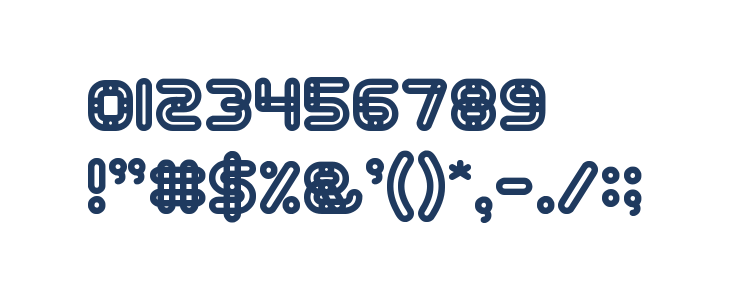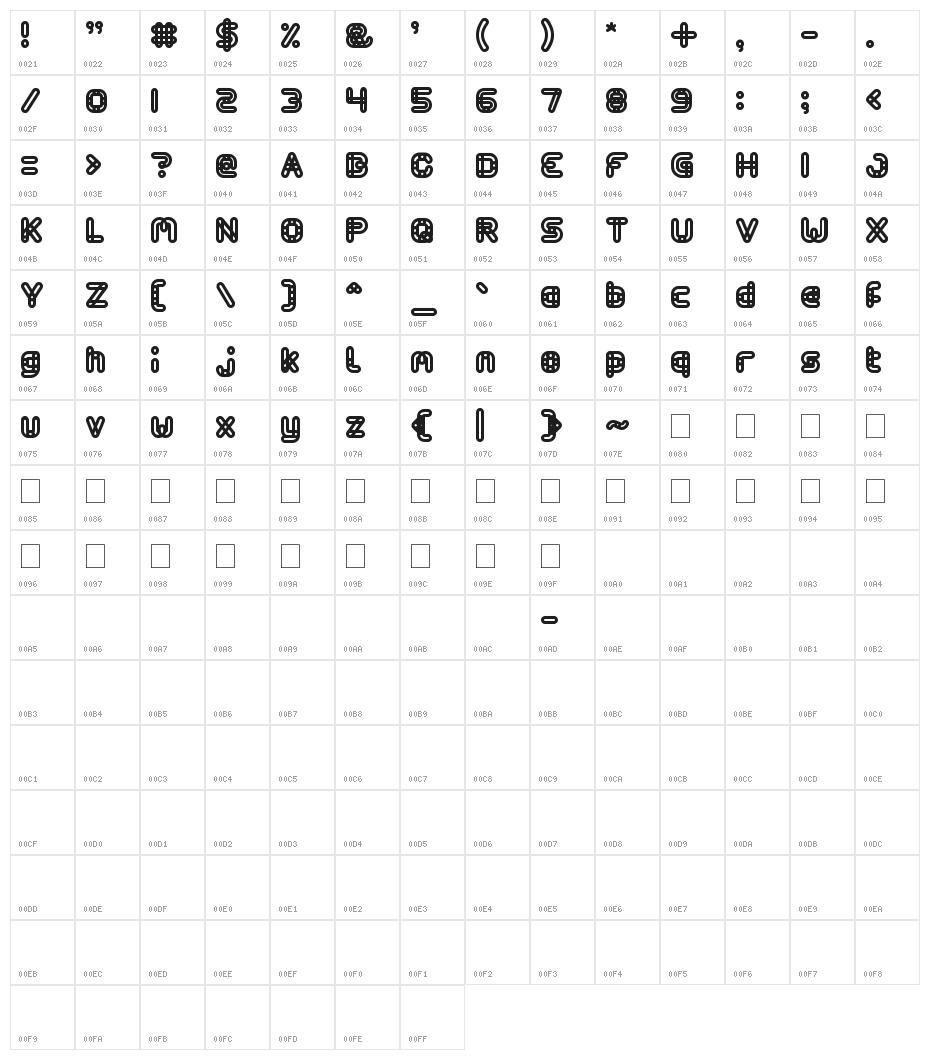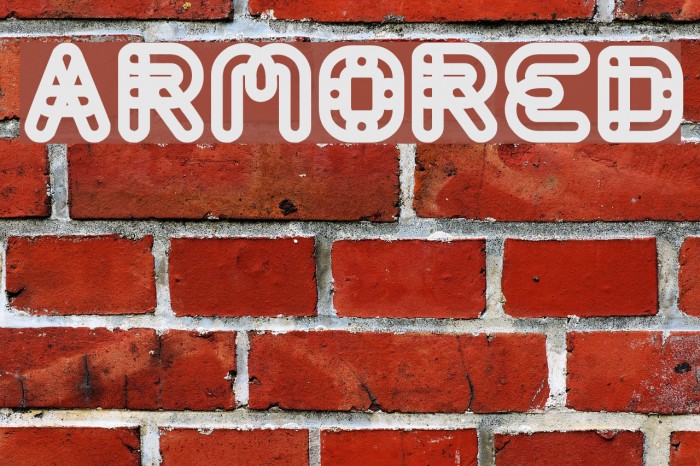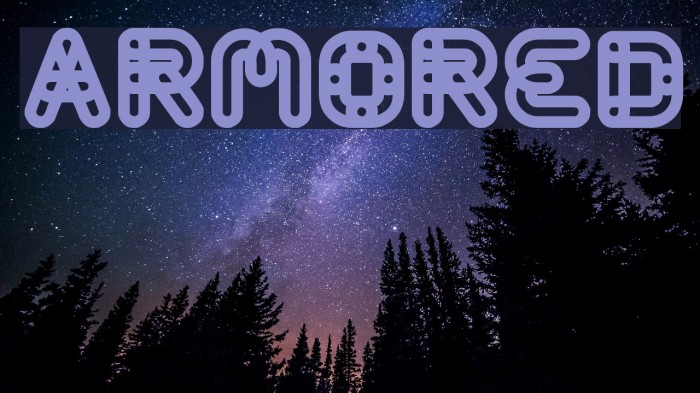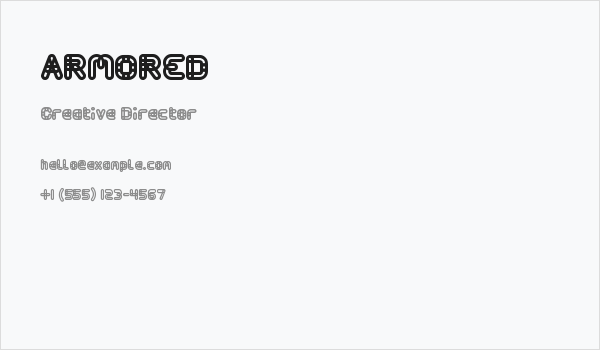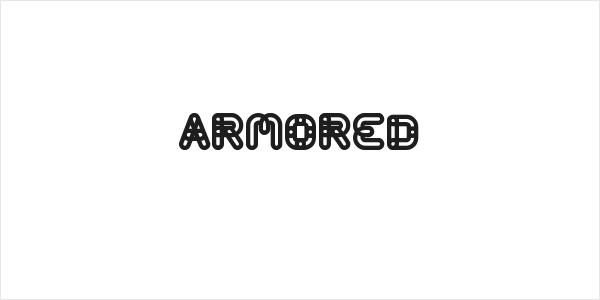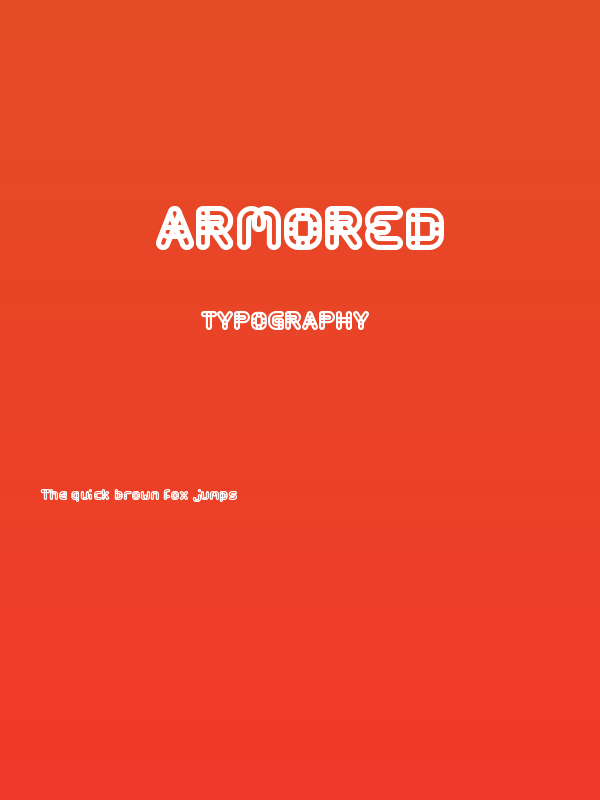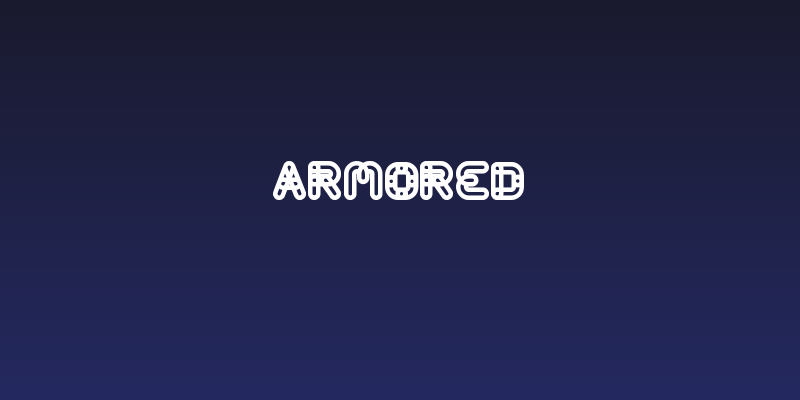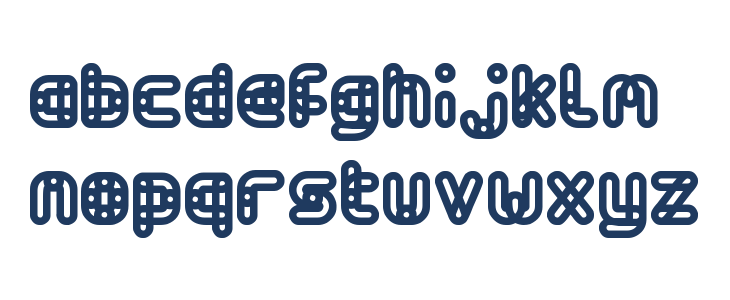
ARMORED Font
ARMORED Description
This font features a bold, geometric design with a distinct armored appearance. Each character is constructed with a thick outline and internal dotted patterns, giving it a futuristic and industrial feel. The uppercase and lowercase letters maintain a consistent style, with rounded edges and uniform thickness. Numbers and special characters follow the same design principles, ensuring a cohesive look across all glyphs. The font's unique style makes it stand out, ideal for projects that require a modern and edgy aesthetic.
| Proposed Projects | Ideal for video game titles, tech branding, futuristic posters, and industrial-themed designs. |